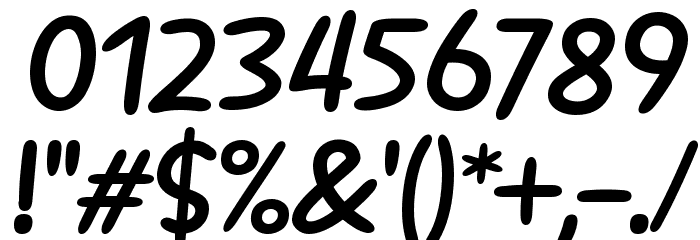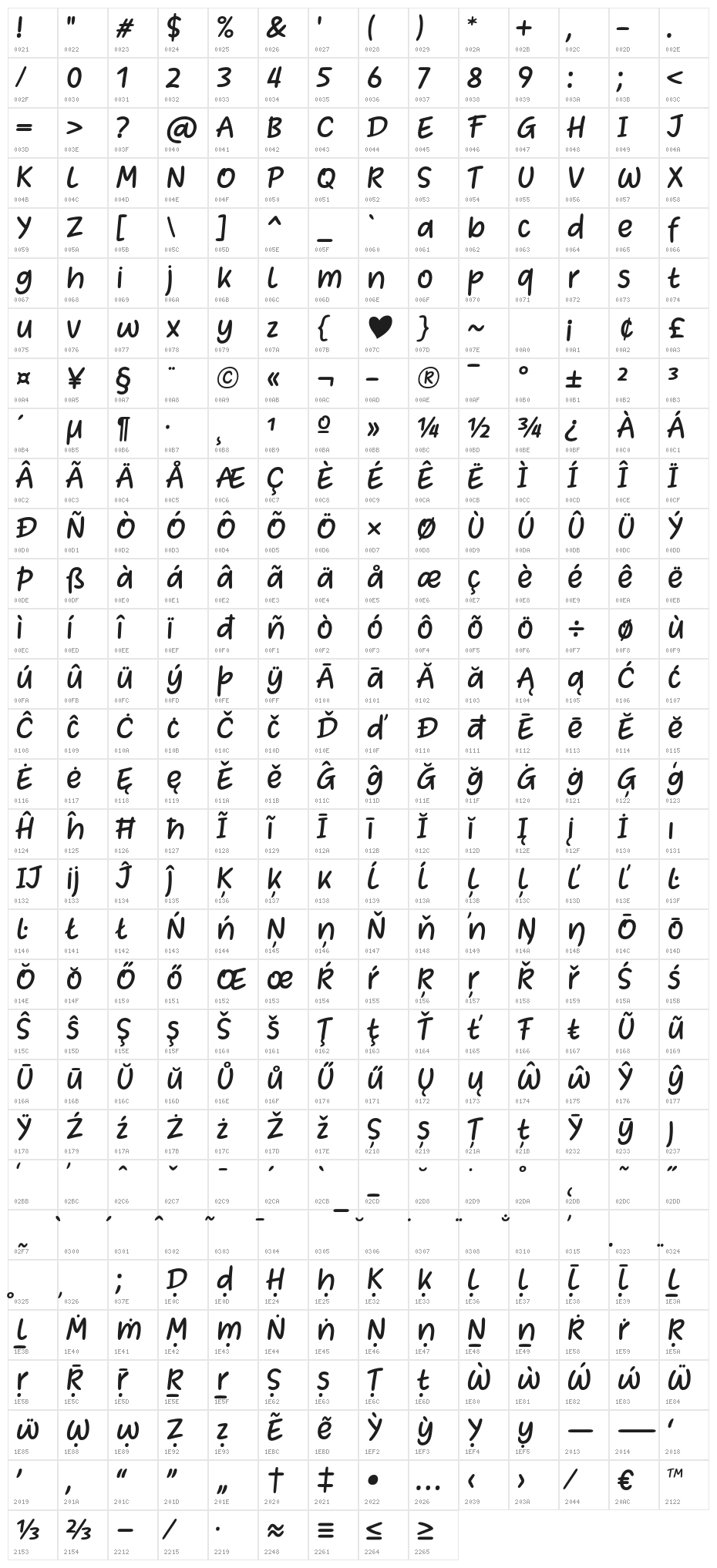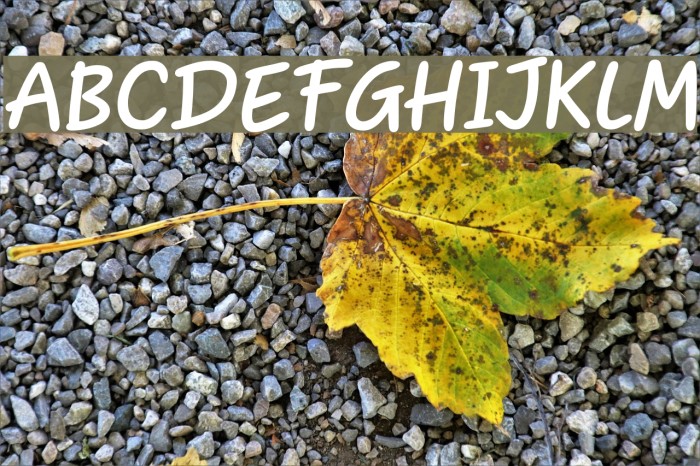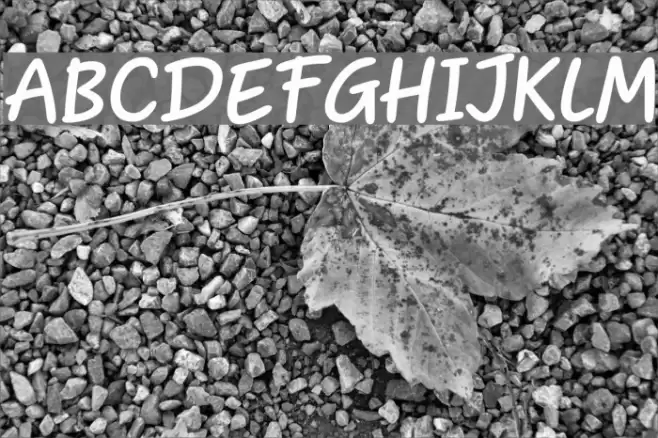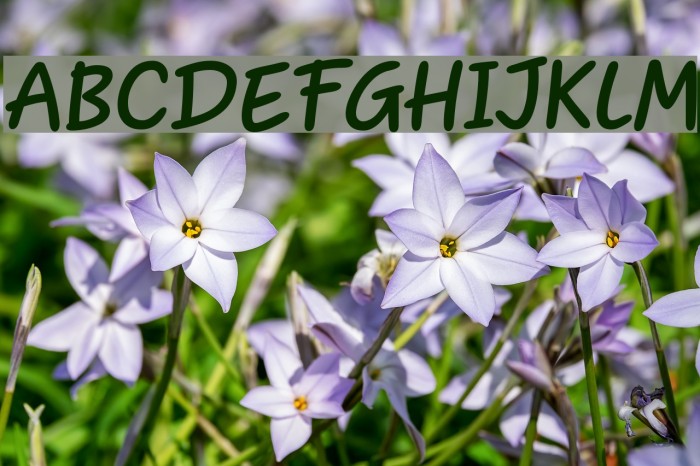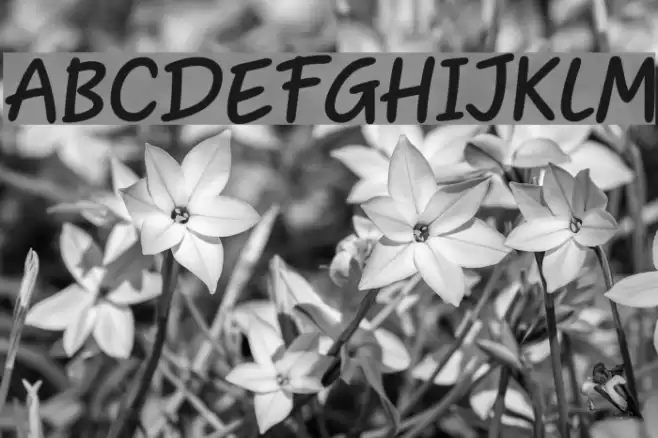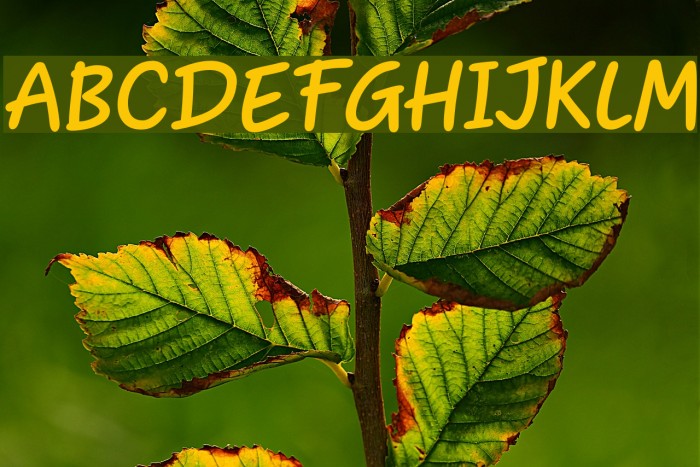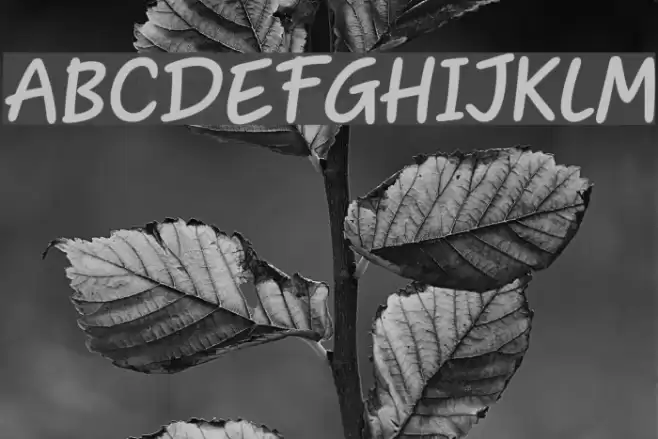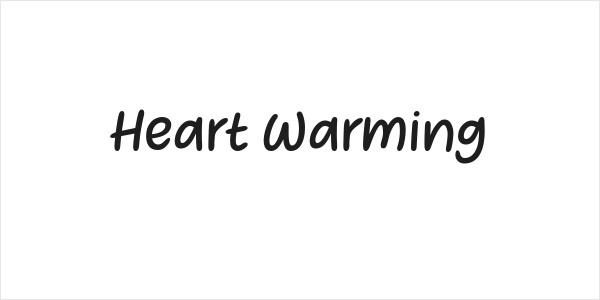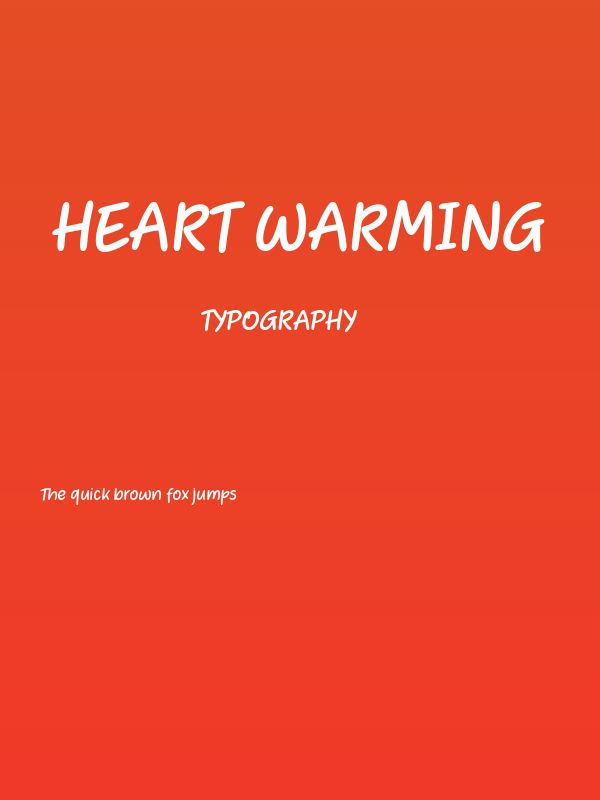
Heart Warming Font
Heart Warming Description
This font features a playful and casual handwritten style, characterized by smooth, rounded edges and a consistent stroke width. The letters are slightly slanted, giving a dynamic and lively appearance. Uppercase and lowercase letters maintain a cohesive look, with a friendly and approachable feel. The numerals and special characters follow the same style, ensuring uniformity across all glyphs. This font is perfect for projects that require a personal touch, such as greeting cards, invitations, or casual branding.
| Use Case | Headlines, Informal text, Personal projects |
| Proposed Projects | Ideal for greeting cards, invitations, personal branding, and playful designs. |